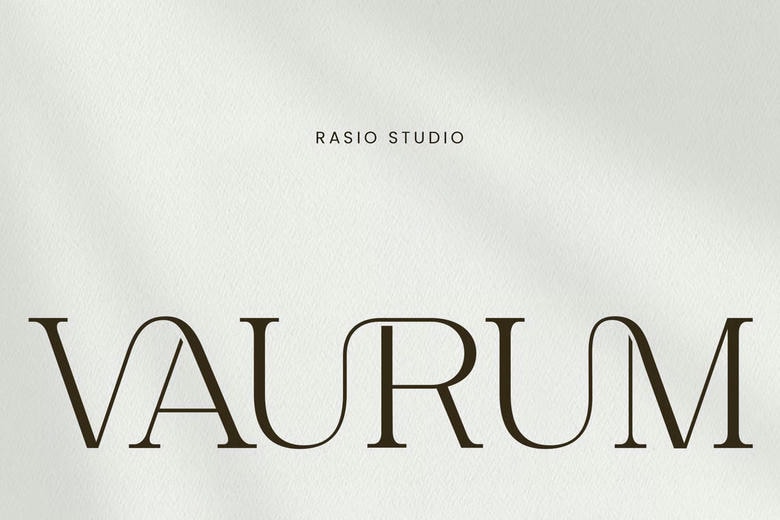
Vaurum Font
Vaurum Font Modern Serif is a display typeface with high-contrast strokes, smooth curves, and detailed serifs. Every letter is thoughtfully crafted and spaced to give the font a clean, balanced look.
This font offers a luxurious editorial style and remains easy to read in large headlines or bold branding. Its design combines modern minimalism with classic serif elegance, creating a calm and upscale feel.
This font works well for luxury branding, fashion editorials, interior design, beauty packaging, wedding stationery, boutique logos, lifestyle magazines, hotel branding, and premium social media visuals. Its elegant and simple style fits projects that need a calm, refined touch.
Vaurum Serif Font